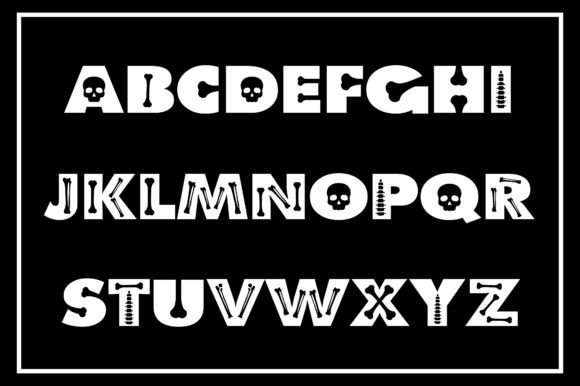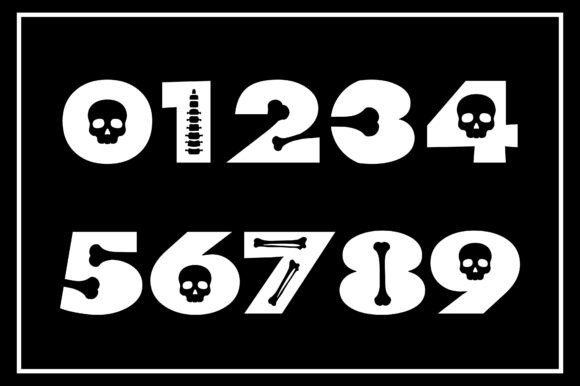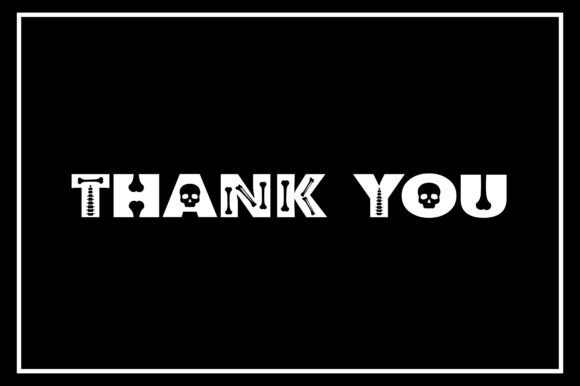
The Spooky Charm of Bones Font: A Designer’s Delight
I still remember the time I was working on a Halloween-themed project for a client, and I was struggling to find the perfect font to capture the spooky yet playful vibe. The client wanted something bold, eye-catching, and uniquely suited for a festive design. That’s when I stumbled upon the Bones Alphabet font, and it instantly became the star of the show! 🎃
- ✅ Unique and bold design featuring bone and skull elements
- ✅ Full alphabet A-Z and numbers 0-9 for versatile use
- ✅ Perfect for Halloween crafts, Cricut projects, and custom DIY creations
- ⚠️ Limited use outside of Halloween or spooky-themed designs
- ⚠️ May not be suitable for very small font sizes due to intricate design
The Story Behind Bones Font: A Designer’s Inspiration
Bones Font was created with the intention of capturing the playful yet spooky essence of Halloween. The designer aimed to craft a font that would be both fun and eerie, making it perfect for a wide range of creative projects. The result is a bold and eye-catching font that’s sure to make your designs stand out.
| Font Name | Bones Font |